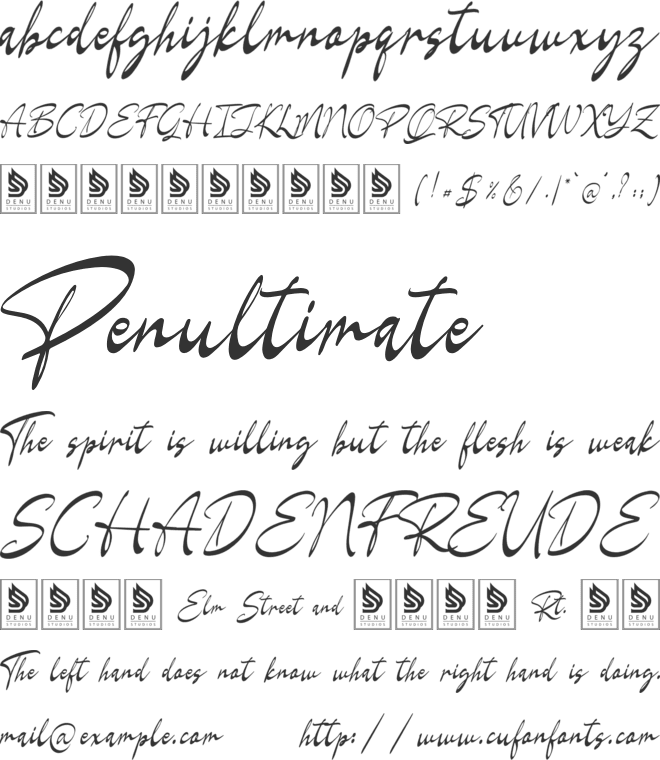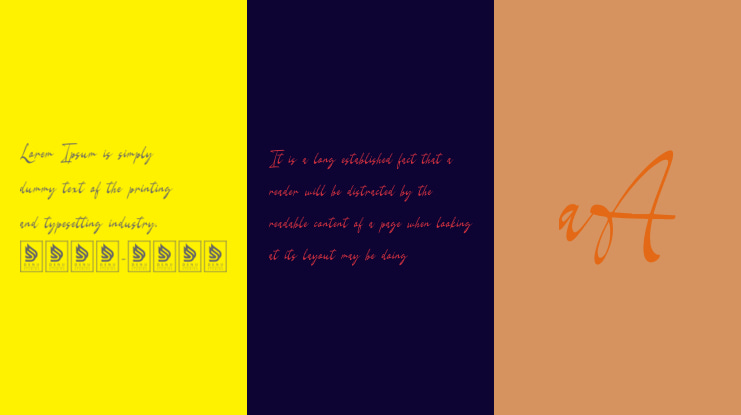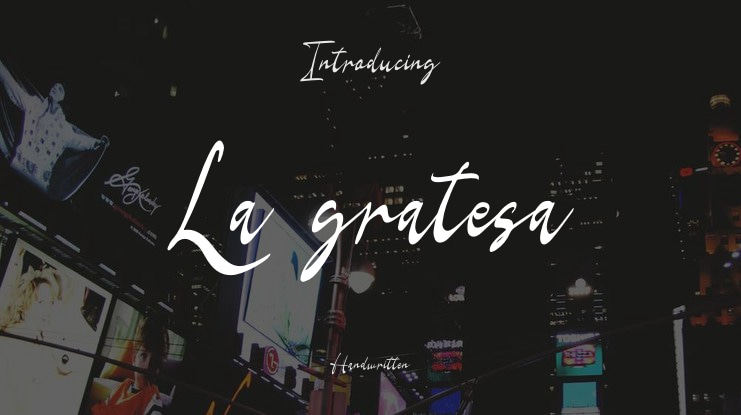
La gratesa | Signature Script product packaging, mugs, quotes, posters, shopping bags, t-shirts, book covers, name card, invitation cards, greeting cards, label, photography, watermark, special events, and all your other lovely projects that need a Signature Script taste.